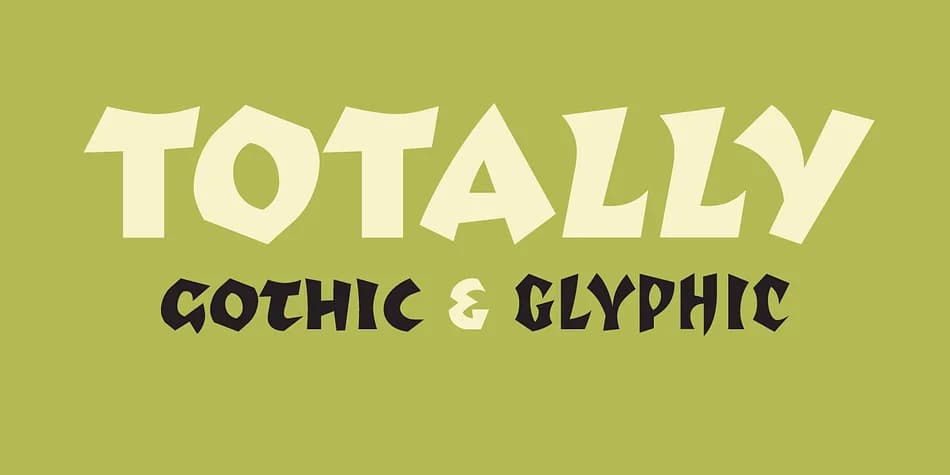
1 / 4About Totally Gothic Font
Totally Gothic brings a strikingly authoritative presence, commanding immediate visual weight and formal dignity. Designed by Emigre, this blackletter typeface captures the essence of medieval letterforms reimagined for contemporary use. What sets it apart is its technical foundation: born from bitmap experimentation in the early digital era, the typeface was refined with PostScript outlines that preserve the character of hand-drawn calligraphy while ensuring reliable reproduction across media.
This is the typeface for sophisticated projects that demand historical authenticity and visual impact. Reach for it when designing wedding invitation suites with serious gravitas, gothic book cover designs that echo Old World craftsmanship, medieval manuscript recreations with intricate detail, and vintage jewelry branding that needs genuine character. The strong, structured geometry translates beautifully across applications: metal signage, embossed stationery, luxury packaging, and printed collateral where you want historical weight without sacrificing legibility.
Pair Totally Gothic with a clean, modern sans-serif for body text and supporting elements, allowing the blackletter to anchor your design hierarchy and draw the eye to key focal points. This interplay between ornate and minimal creates sophisticated visual breathing room and clear hierarchy. You'll find Totally Gothic on Creative Fabrica, ready to bring that authentic historical edge to your next project.
- Ornate, Gothic
- Logos, Certificates
- medieval themes, band merch, and tattoo lettering
- a clean sans-serif for body text
Totally Gothic Font is a blackletter font that shines as a display or heading face. Pair it with a clean serif or sans-serif font for body text β the contrast creates a clear hierarchy while the two styles stay balanced and easy to read.
Totally Gothic Font
by Emigre